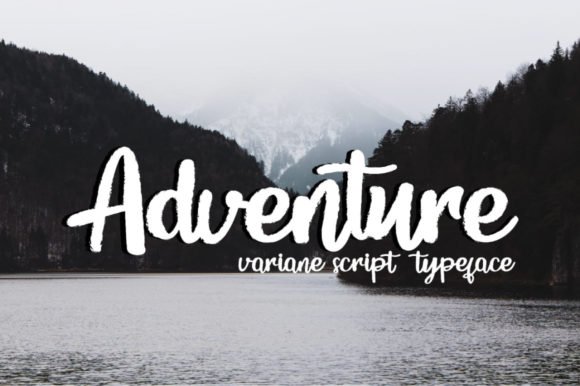
The Quest for the Perfect Font
Have you ever found yourself in the middle of a design project, staring at a blank canvas, and suddenly, a spark of creativity hits you? The words flow, the ideas pour in, and you know exactly what you want to create. For designers, these moments are a blessing, and they often rely on the right tools to bring their vision to life. That’s where the Adventure Font comes in – a delicate and elegant handwritten font that’s about to take your designs to the next level.
This beautifully crafted font is more than just a pretty face; it’s a versatile tool that can elevate any project. Whether you’re working on a wedding invitation, a travel brochure, or a social media campaign, Adventure Font is sure to impress. Its well-balanced letters and distinct style make it a masterpiece that’s worth falling in love with. And the best part? It’s a valuable asset for designers who want to create spectacular designs that leave a lasting impression.
Adventure Font Key Features
- Unique Characteristics: The Adventure Font features a unique, hand-drawn style with intricate details and flourishes, making it perfect for adding a touch of personality to designs.
Adventure Font Review
Overall, I think Adventure Font has a lot going for it. Here are some of the things that work well: ✨
- It’s perfect for adventure and travel-themed projects – the bold, adventurous feel really comes through.
- The font is highly customizable, with plenty of options for adjusting the weight, spacing, and other parameters.
- It’s a great choice for headings and titles, where you want to make a bold statement.
However, there are also some limitations to consider: ⚠️
- The font can be a bit hard to read at smaller sizes, especially in body text.
- It may not be the best choice for projects where you need a lot of subtlety or nuance in your typography.
- The font family is a bit limited, with only a few weights and styles to choose from.
Overall, I think Adventure Font is a solid choice for the right project – just be aware of its limitations and use it thoughtfully. With some careful design and layout, it can really add some excitement and energy to your work.
Tips for Getting the Most Out of Adventure Font
For best results, use the Adventure Font in conjunction with bold or italic styles to add emphasis to your text. Experiment with different font sizes and colors to create a visually appealing design.
The Adventure Font is perfect for:
- Travel and adventure websites
- Outdoor and sports marketing campaigns
- Adventure-themed social media graphics
- Travel brochures and posters
Alternatives to Adventure Font
Playfair Display is an elegant, luxurious font perfect for creating a sense of sophistication and refinement. It is ideal for use in high-end branding, luxury goods, and fine art. When to use: Luxury branding, invitations, and special occasions.
Playfair Display is more refined and elegant compared to Adventure Font, which is bolder and more energetic. While Adventure Font is best suited for outdoor and action-related themes, Playfair Display excels in creating a sense of luxury and sophistication.
Rockwell is a strong, sturdy font that evokes a sense of reliability and stability. It is ideal for use in corporate branding, technical documentation, and industrial design. When to use: Corporate branding, technical documentation, and industrial design.